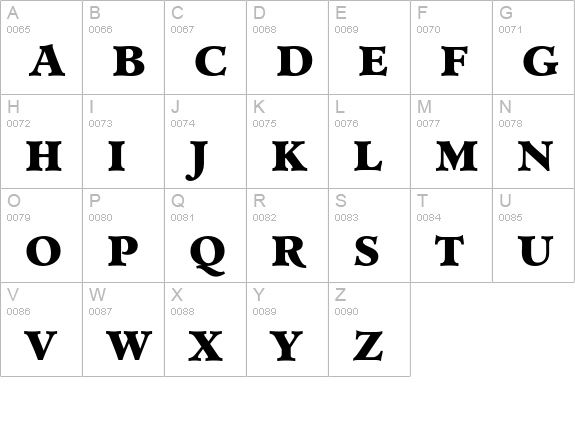
Minister Black Font Details
Minister Black is a maximum-weight, dramatic variant in the Minister typeface family \xE2\x80\x94 well suited to maximum-impact headlines, posters, and packaging.